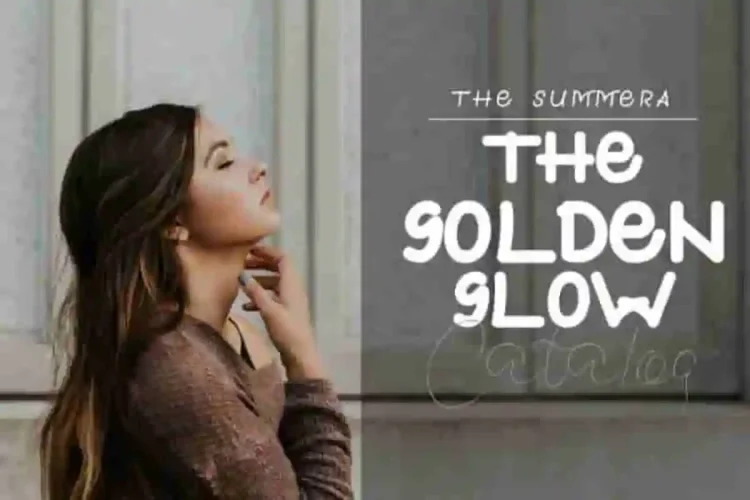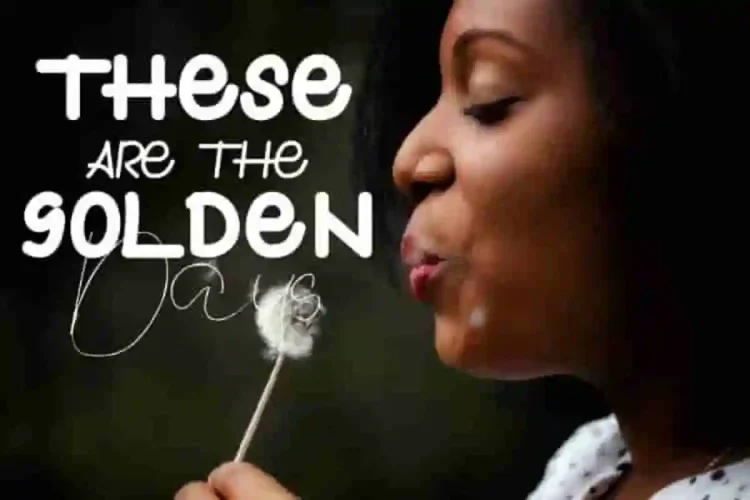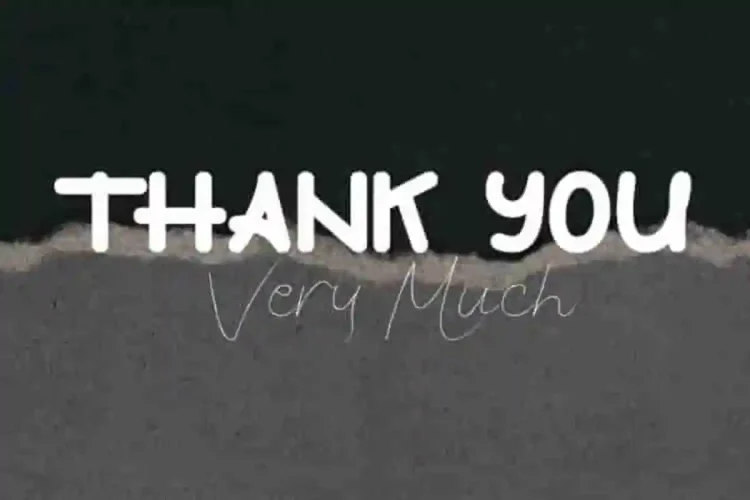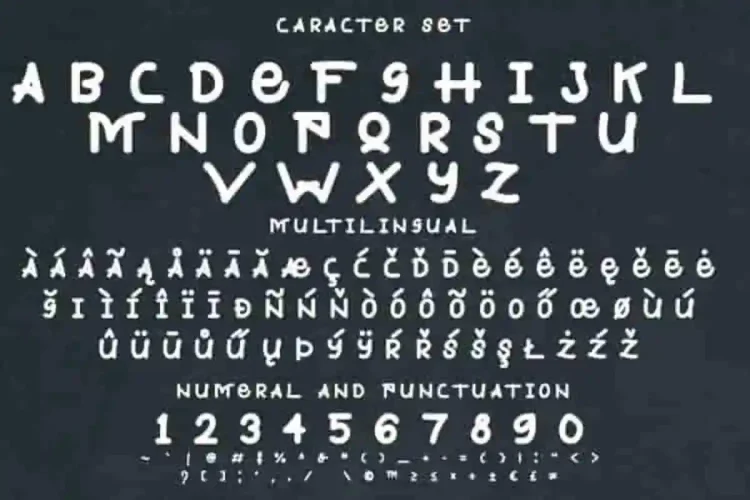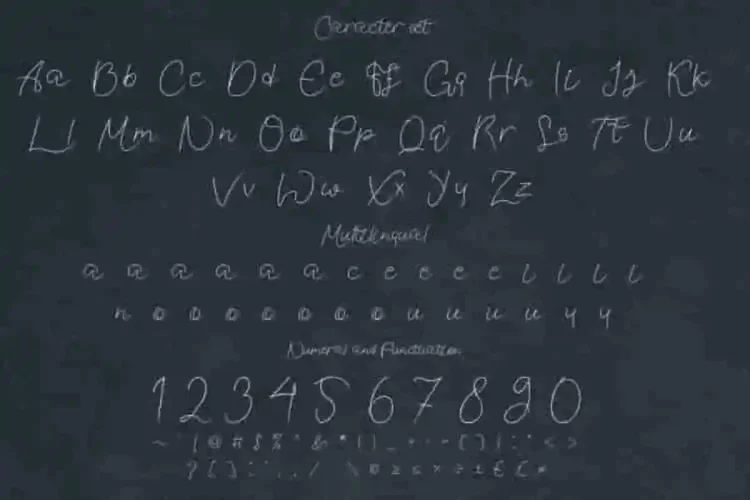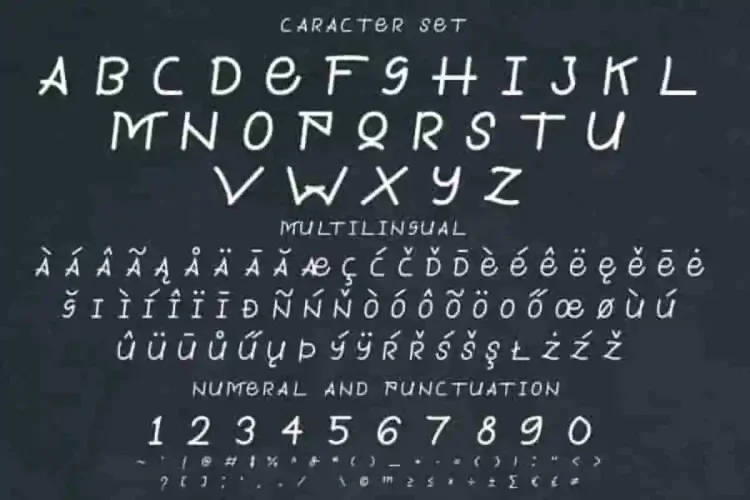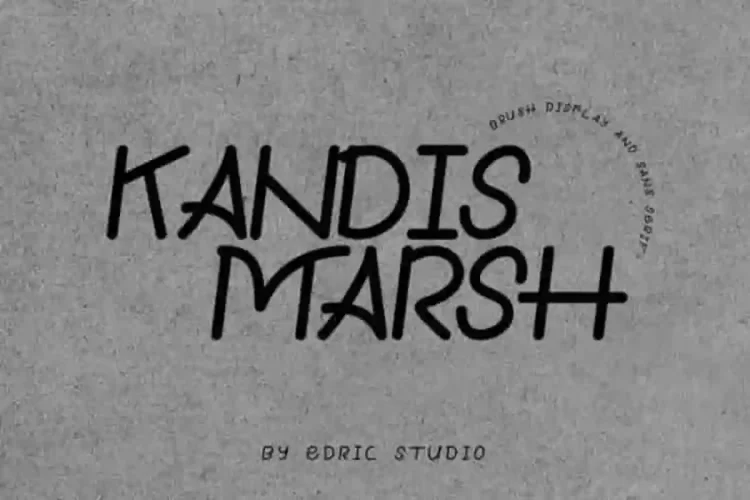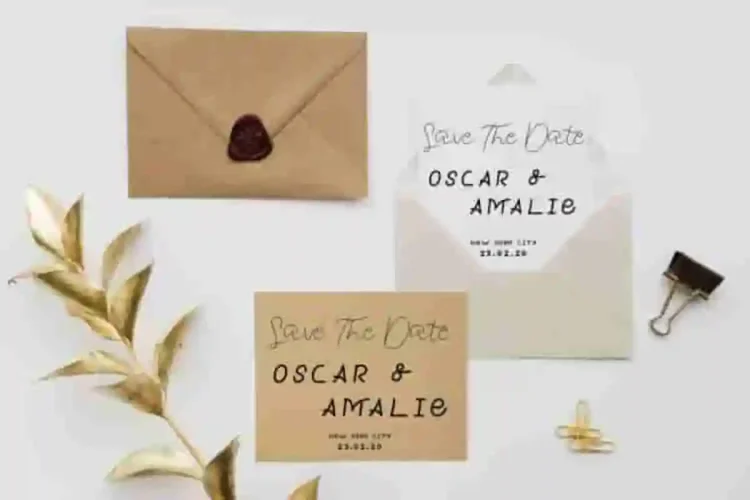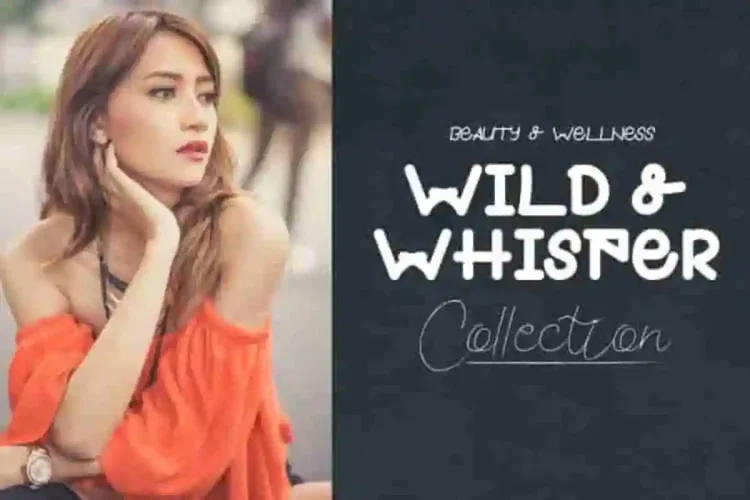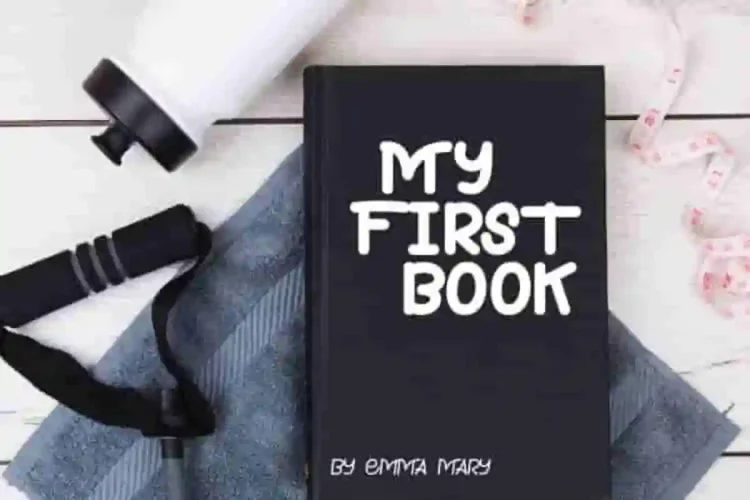
Kandis Marsh Handwritting Font Duo
Edric Studio in 2020 Present to you : Kandis Marsh Handwritting Font Duo
This is a display brush font family made in Bandung-Indonesia. It has three styles : Reguler, Bold and Script. Made by Yasri and Sarah in Bandung and Garut – Indonesia.